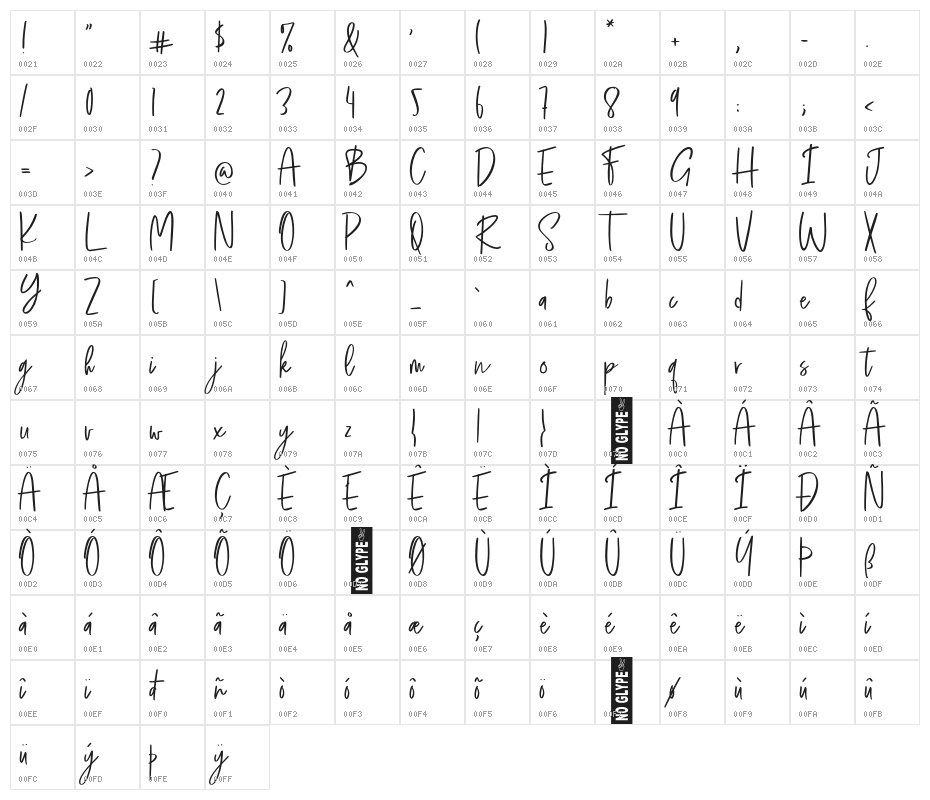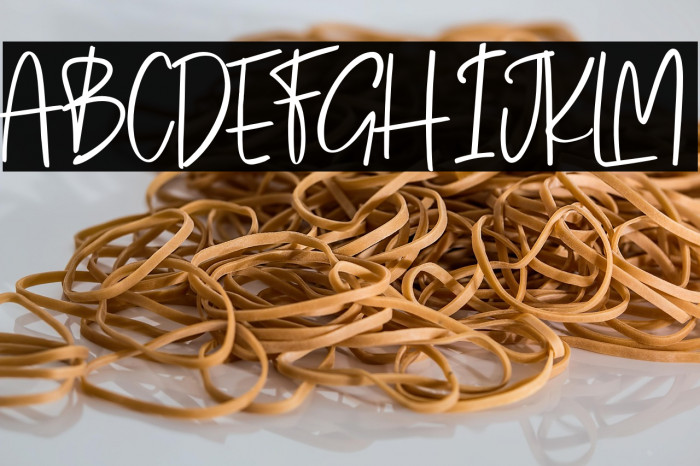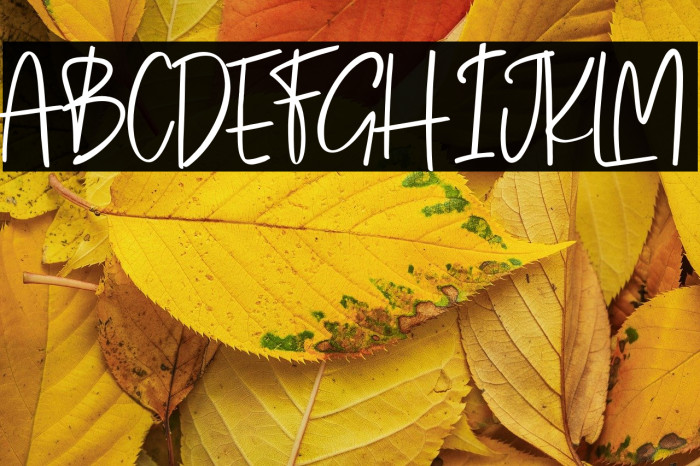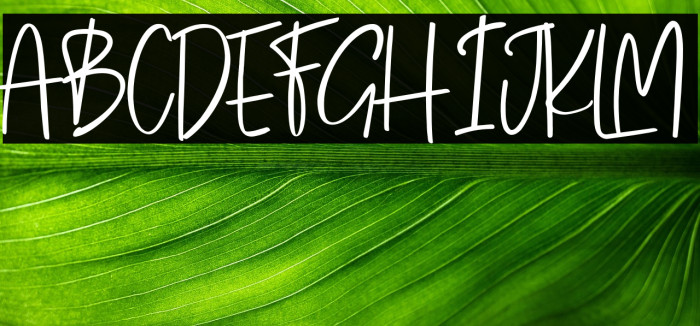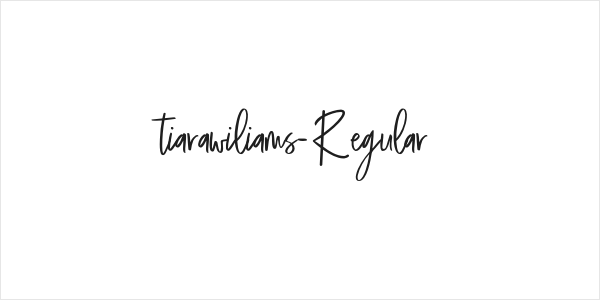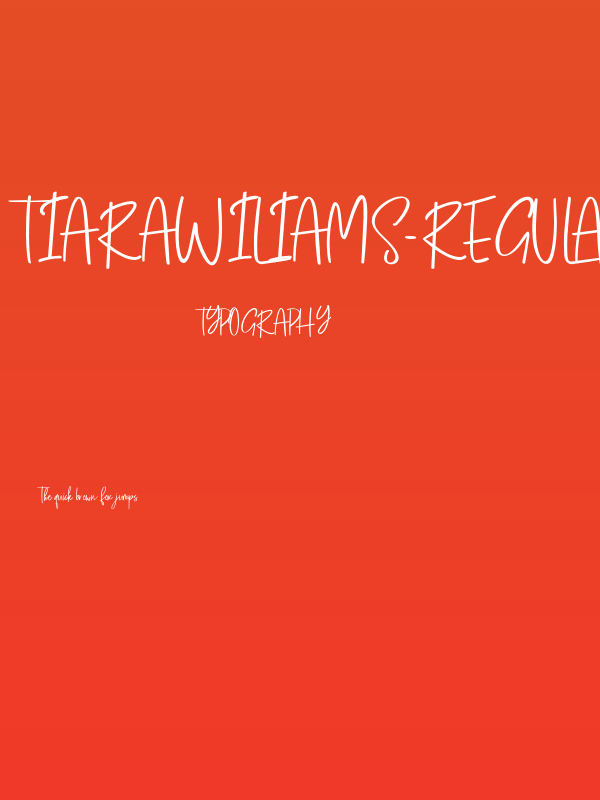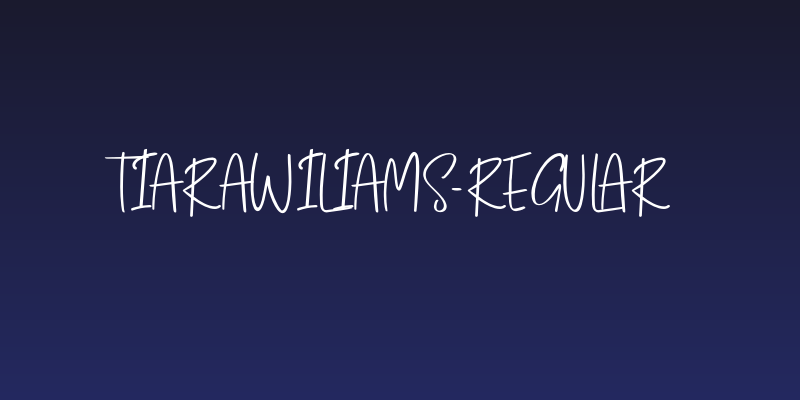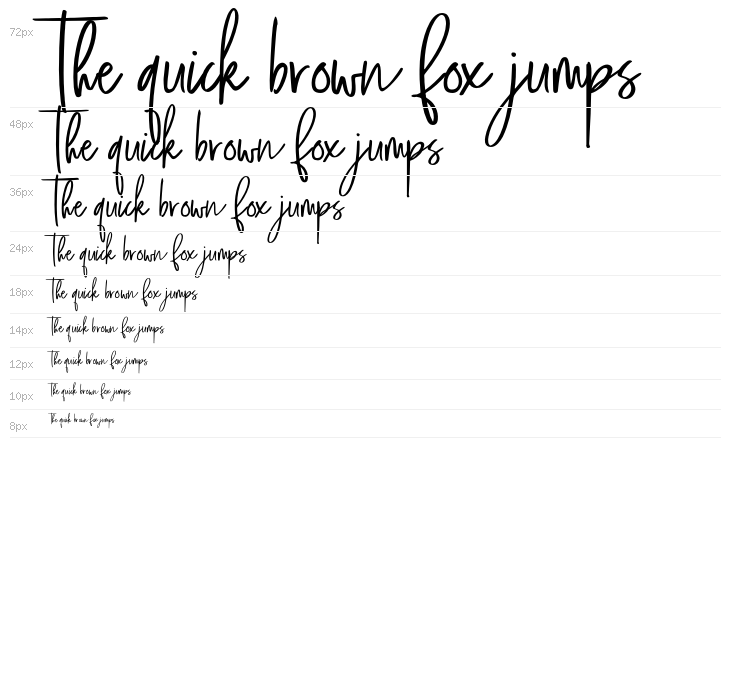
tiarawiliams-Regular Font
tiarawiliams-Regular Description
This font features a dynamic and expressive handwritten style, characterized by its fluid and natural strokes. The uppercase letters are tall and slightly narrow, giving a sense of elegance and sophistication. The lowercase letters maintain a consistent flow, enhancing readability while preserving the handwritten charm. Numbers and special characters are crafted with the same attention to detail, ensuring a cohesive look across all elements. The overall appearance is both casual and stylish, making it suitable for a variety of creative projects.
| Use Case | Logos, Headlines, Social media posts |
| Proposed Projects | Ideal for personal branding, invitations, greeting cards, and social media graphics. |